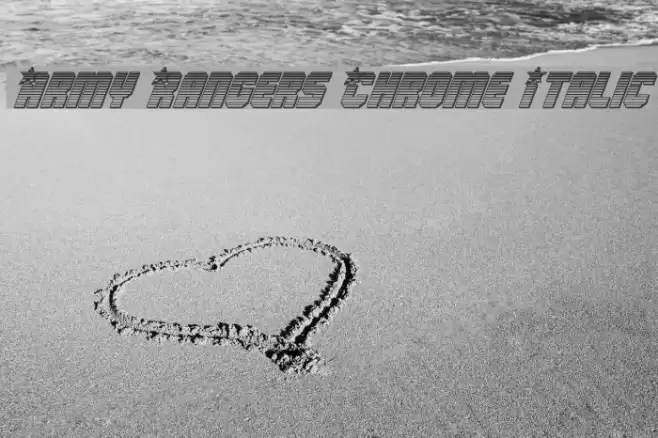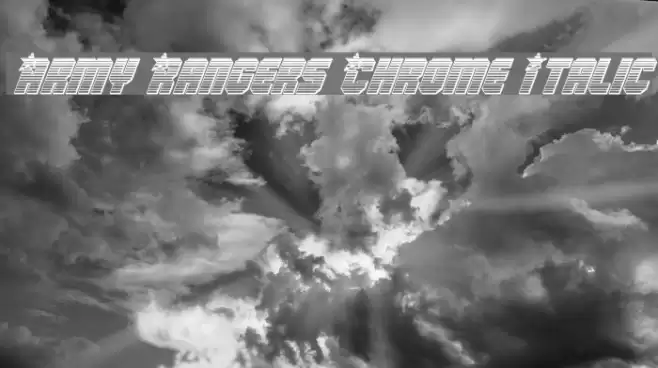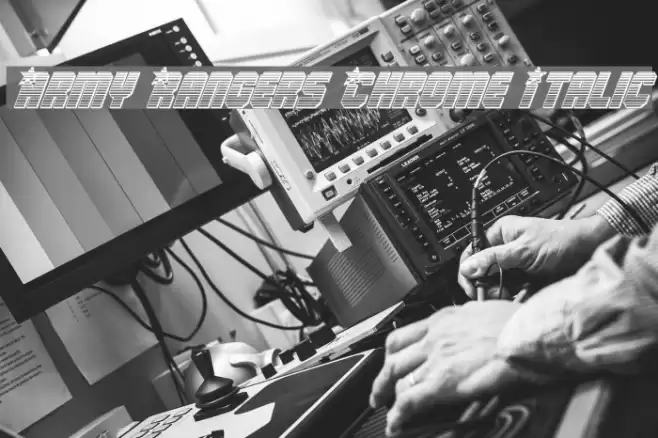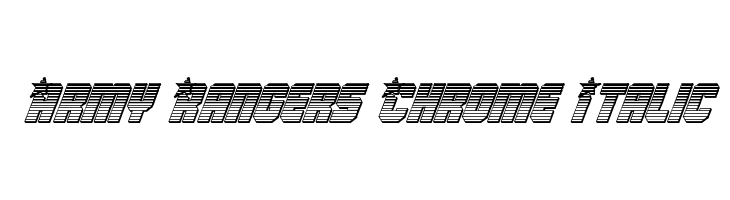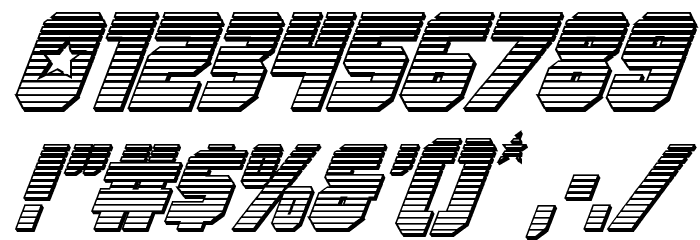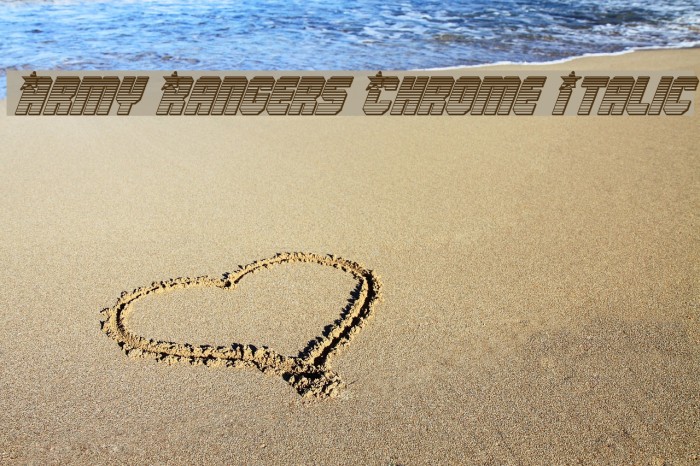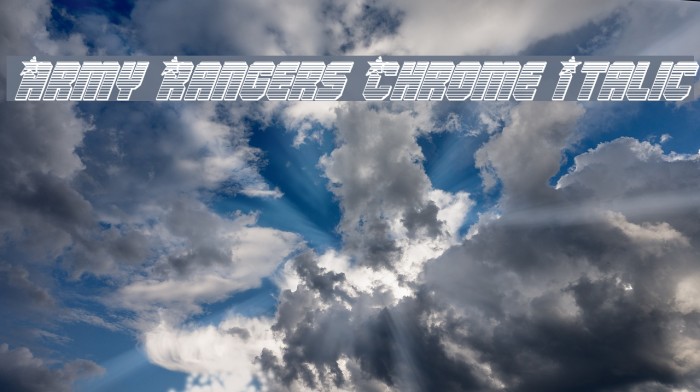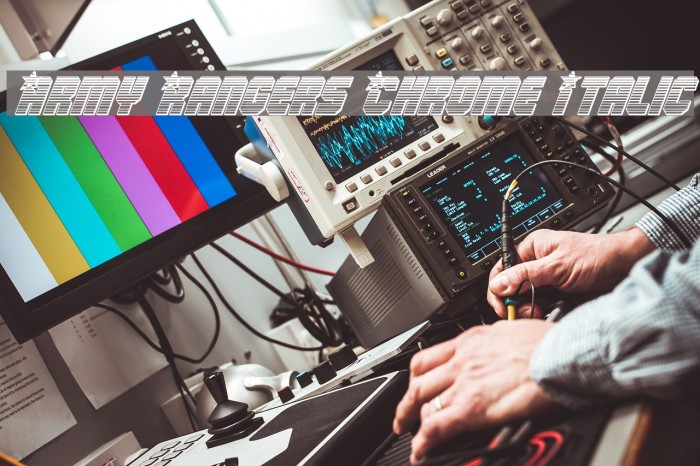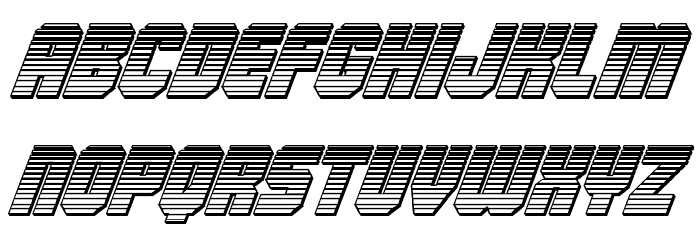
Army Rangers Chrome Italic Font
Army Rangers Chrome Italic Description
This font features a bold, three-dimensional design with a chrome-like appearance, giving it a futuristic and industrial feel. The characters are italicized, adding a dynamic and forward-leaning aspect to the text. Each letter and number is composed of multiple horizontal lines, creating a layered effect that enhances the depth and metallic sheen. The font includes both uppercase and lowercase letters, numerals, and a selection of special characters, all maintaining the same distinctive style. The overall aesthetic is striking and attention-grabbing, making it ideal for projects that require a strong visual impact.
A bold, italicized, chrome-like font with a three-dimensional, industrial design from Uncategorized fonts.
- Proposed Projects: Ideal for use in sci-fi themed designs, video game titles, movie posters, or any project requiring a futuristic and bold aesthetic.
- Overall Style: Futuristic, Industrial